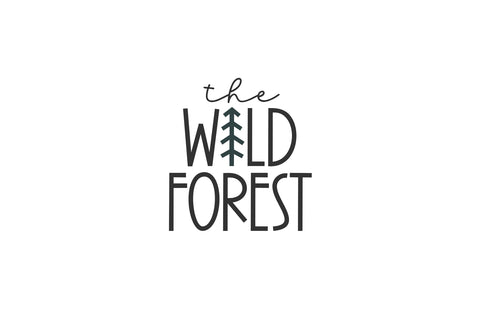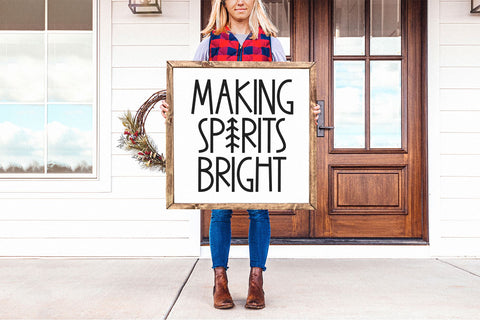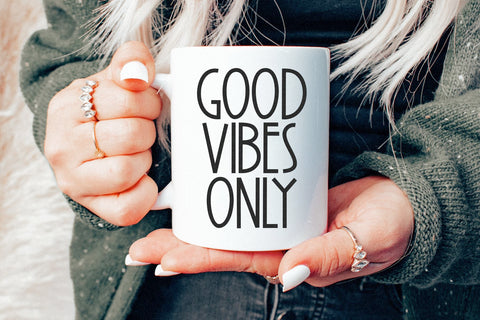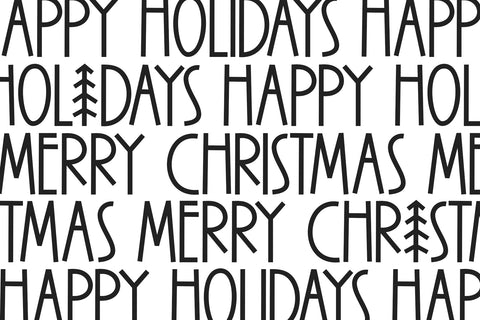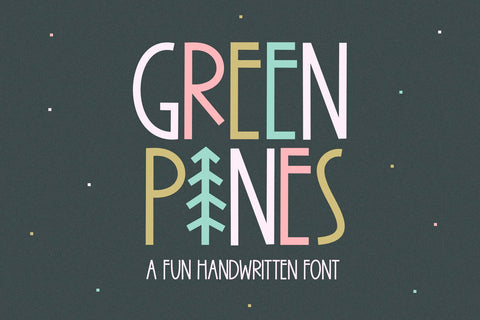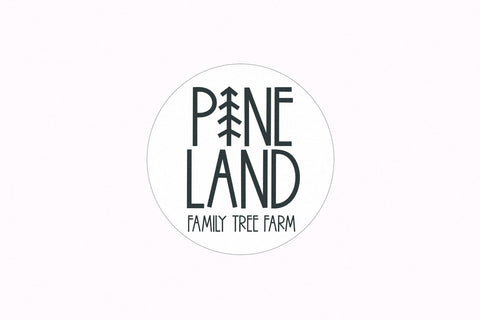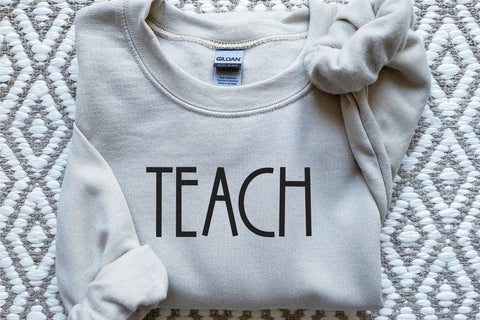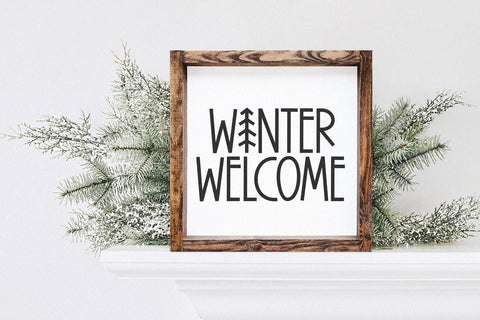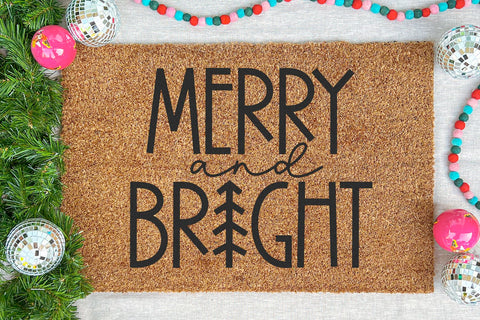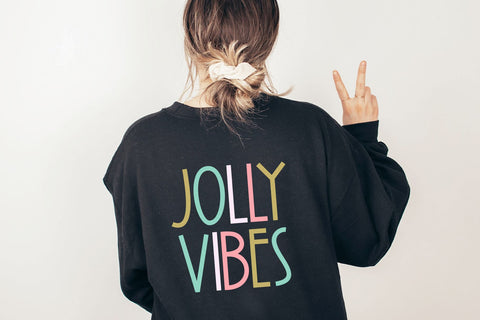
Green Pines - Fun Handwritten Font
Green Pines is a fun handwritten font - perfect for your Christmas designs or every day use!
This is an all caps font. Please use the ^ to easily access the tree character shown in the preview pictures.
Use this font for your craft projects, Christmas signs, shirts, vinyl, stickers, svg designs, mugs, procreate and more!